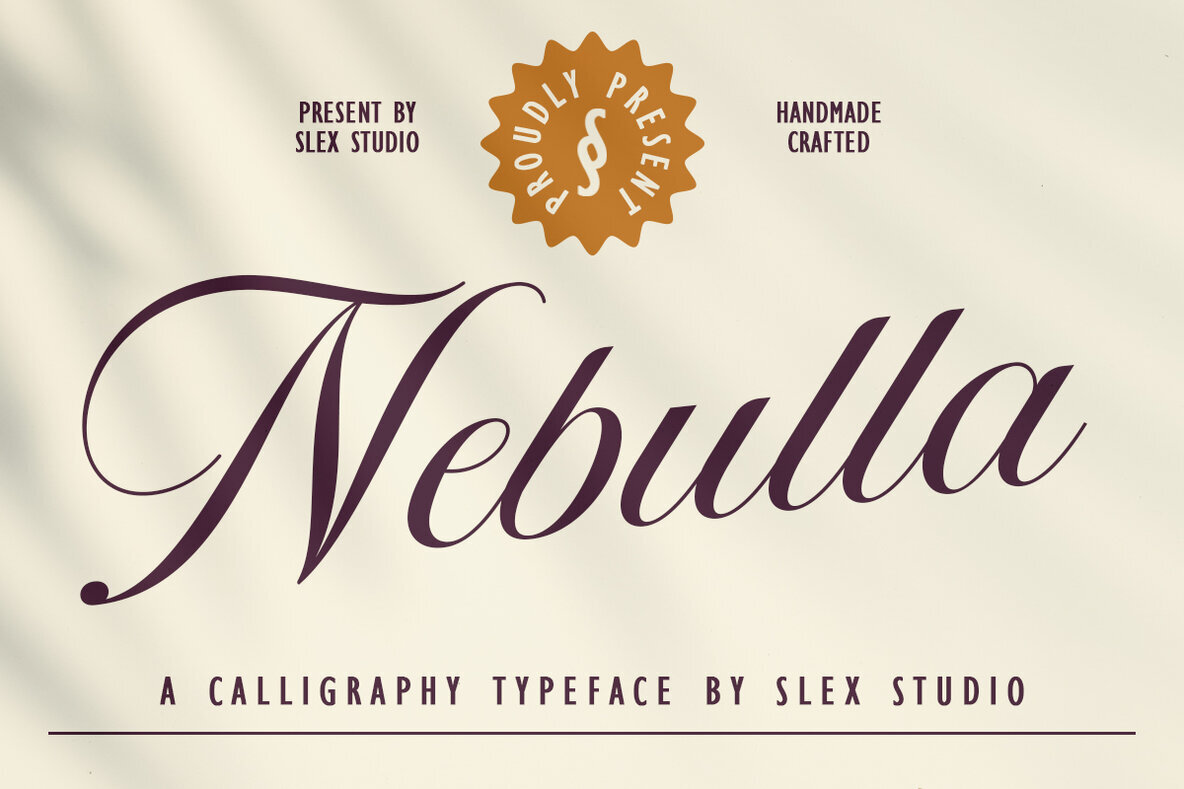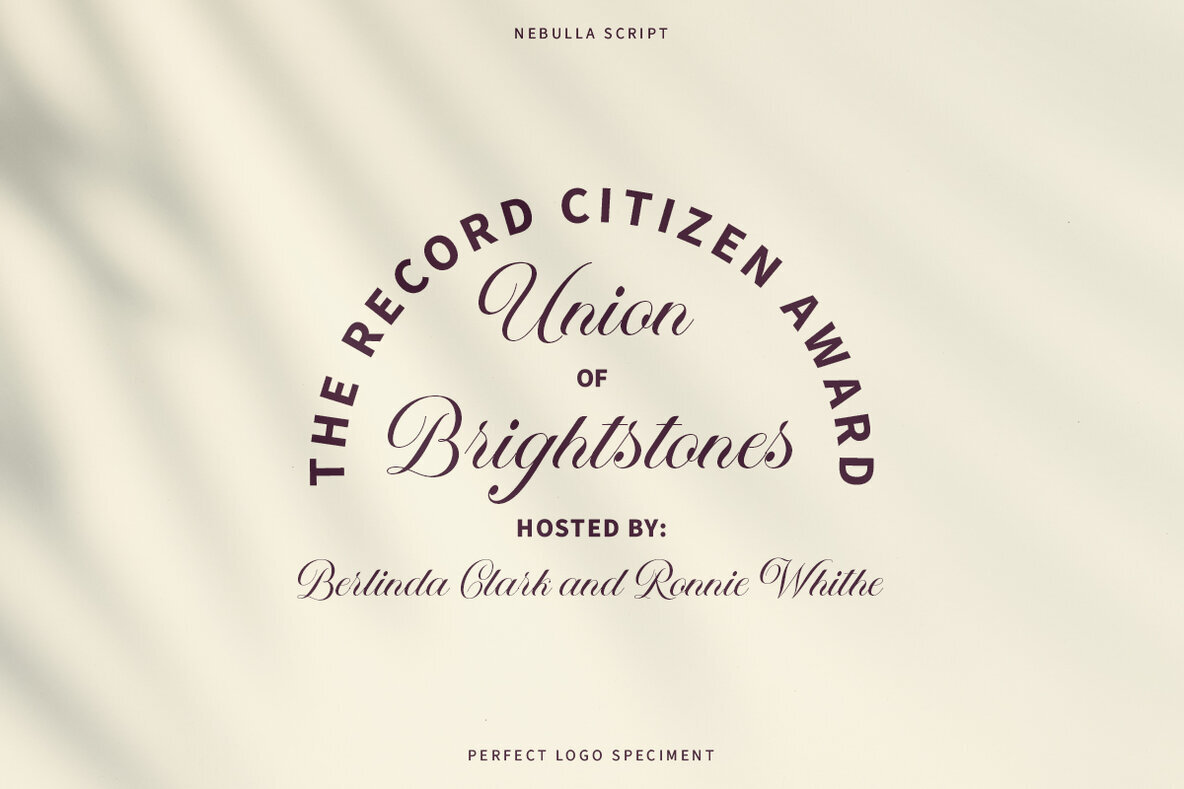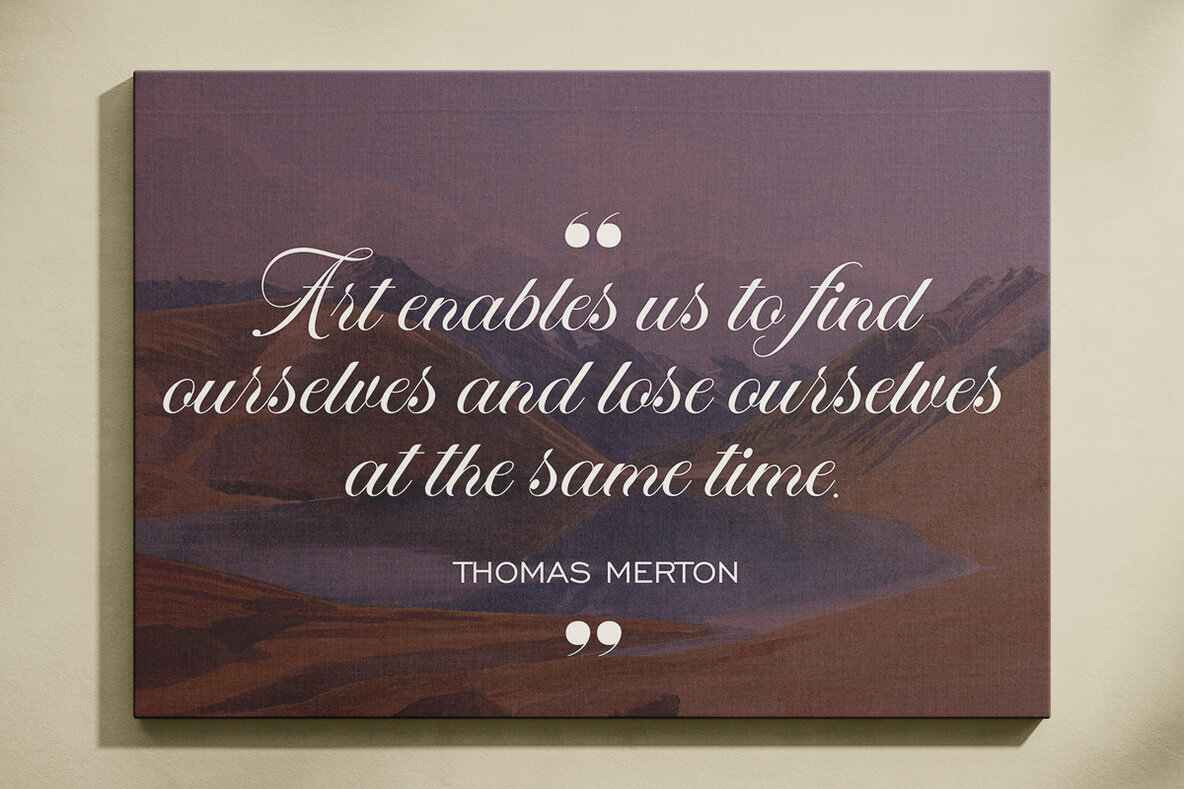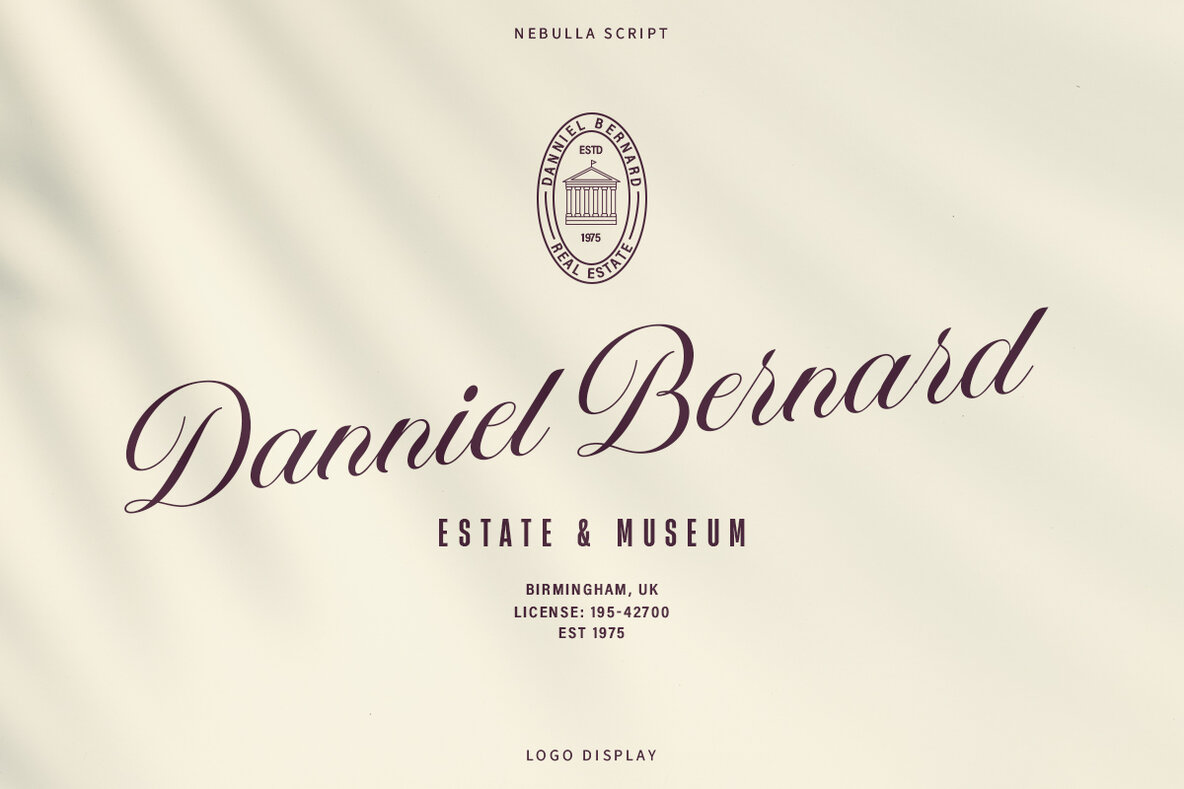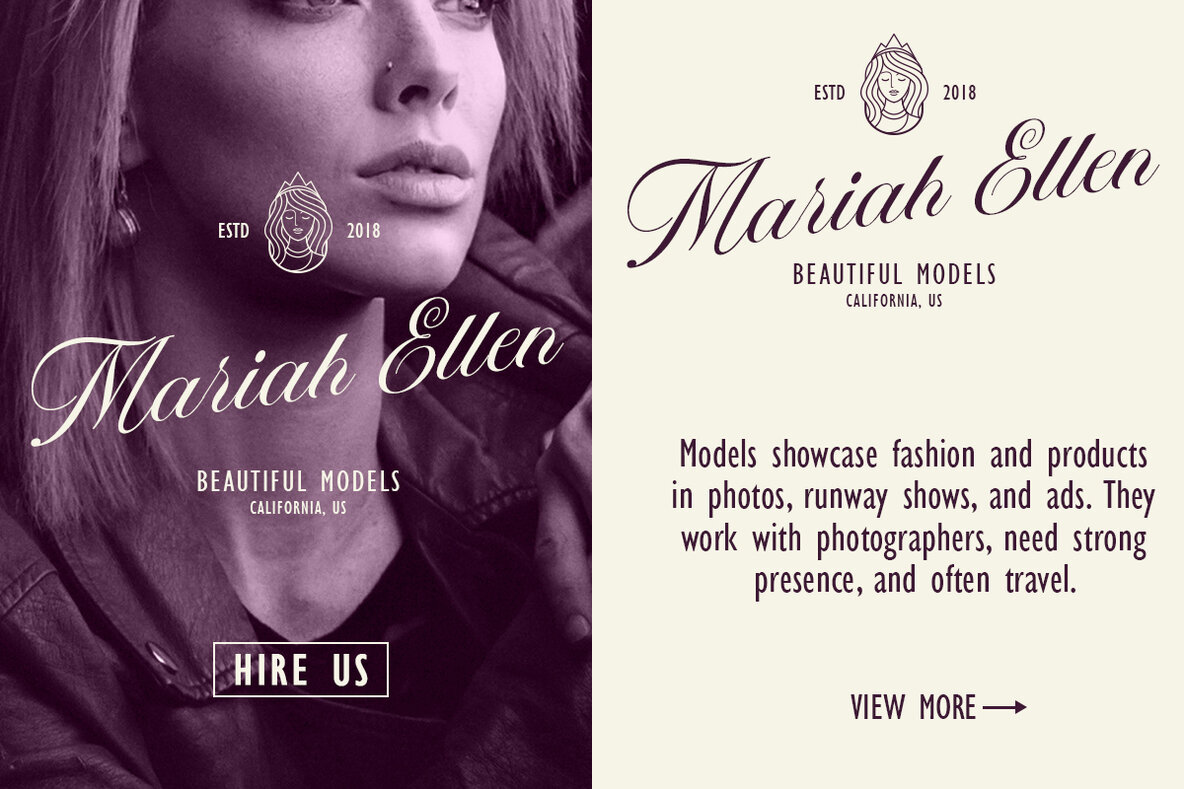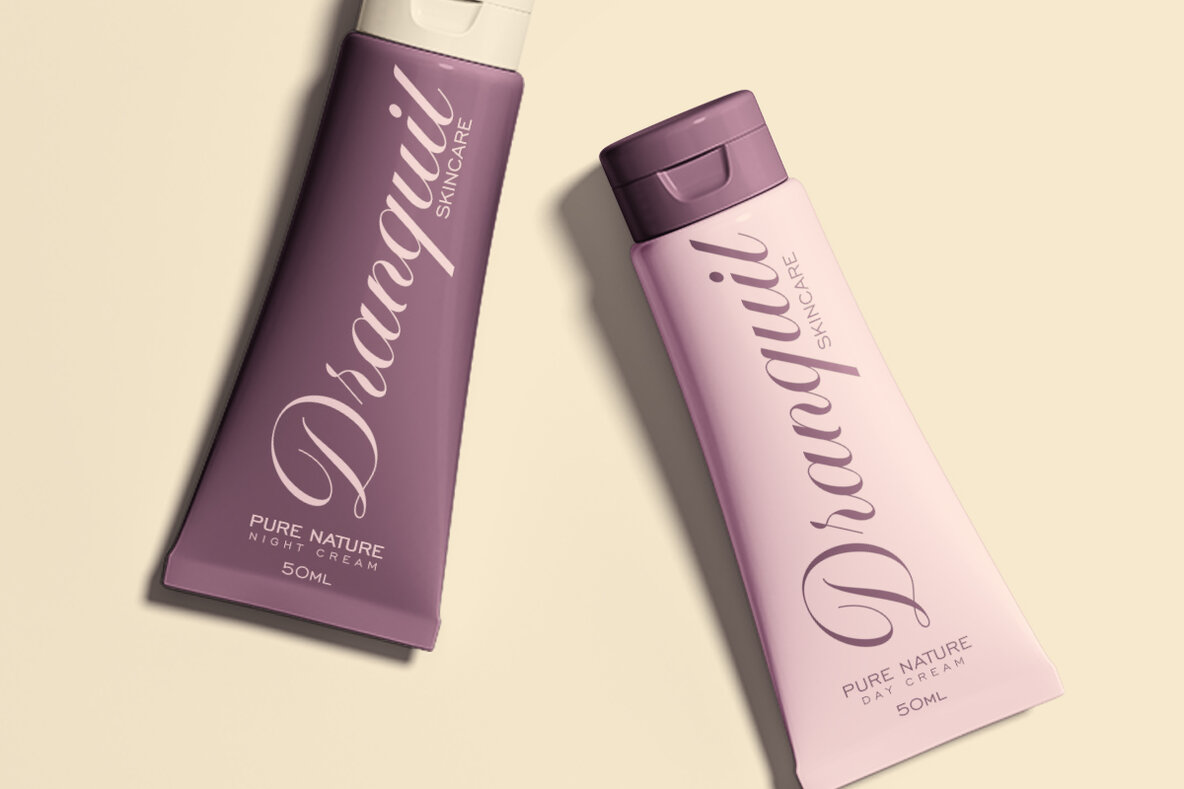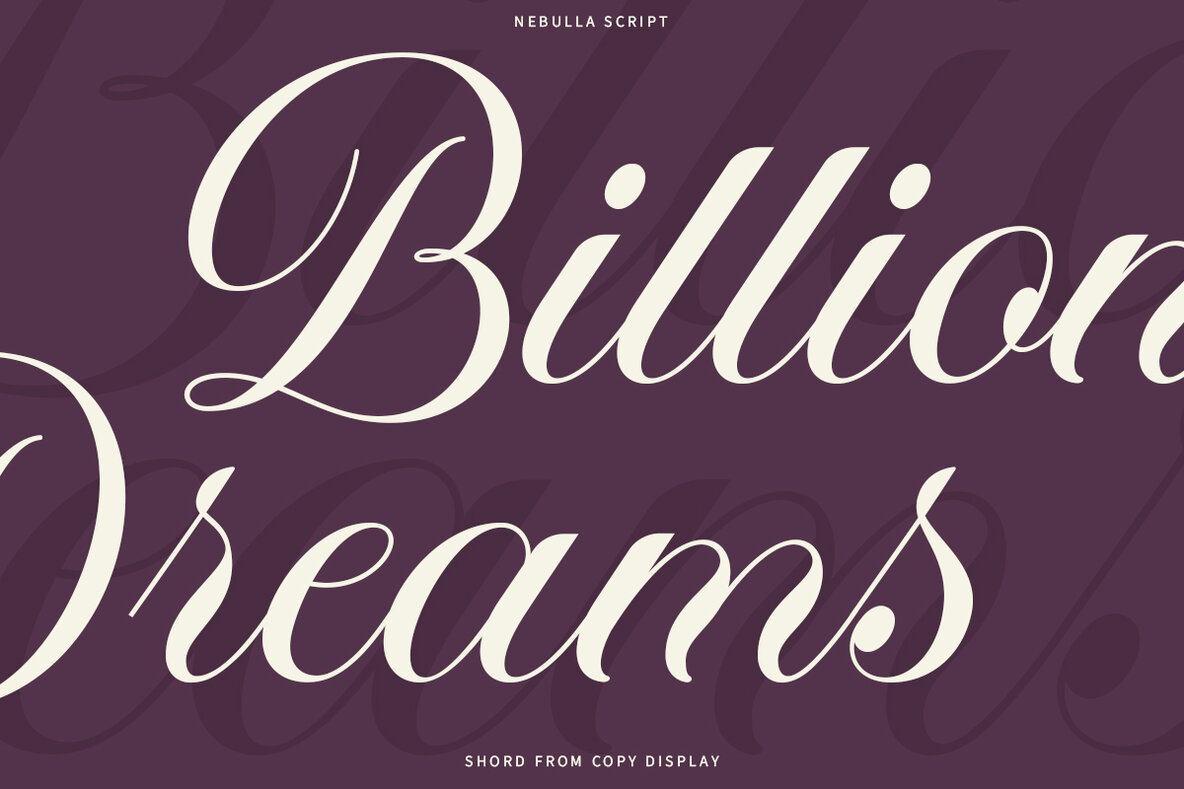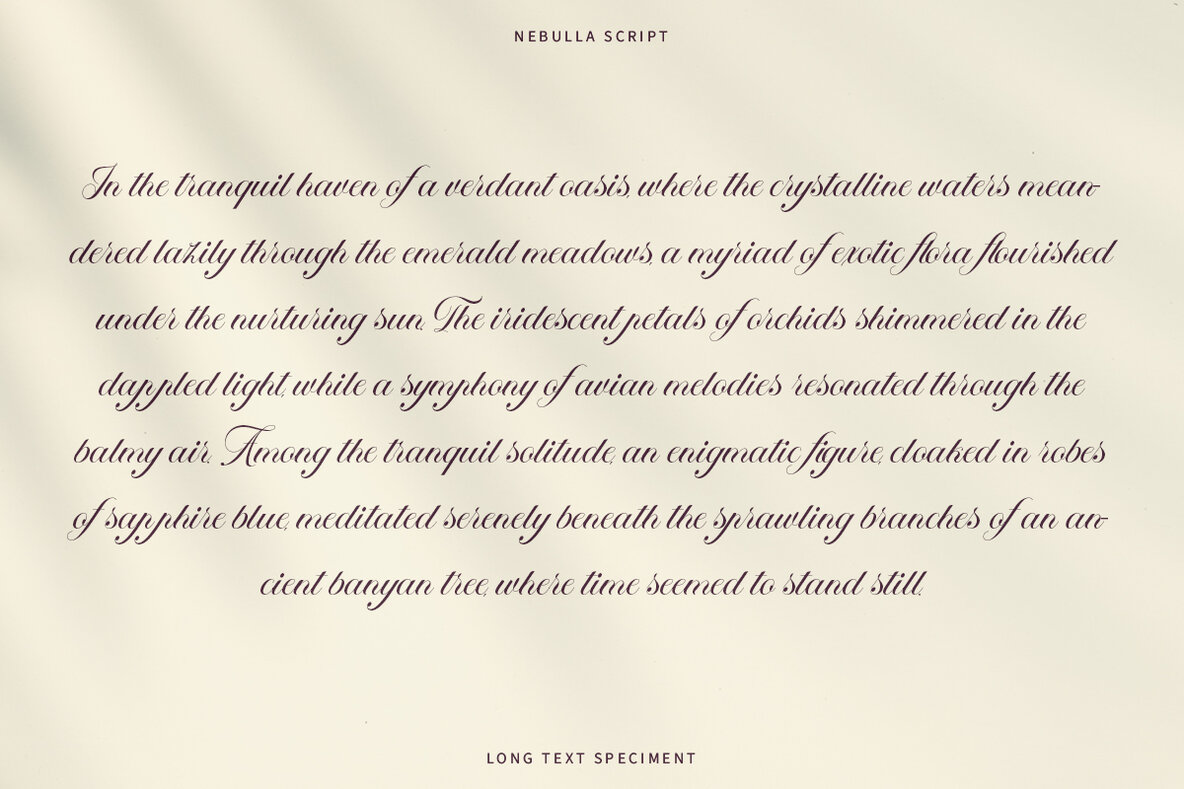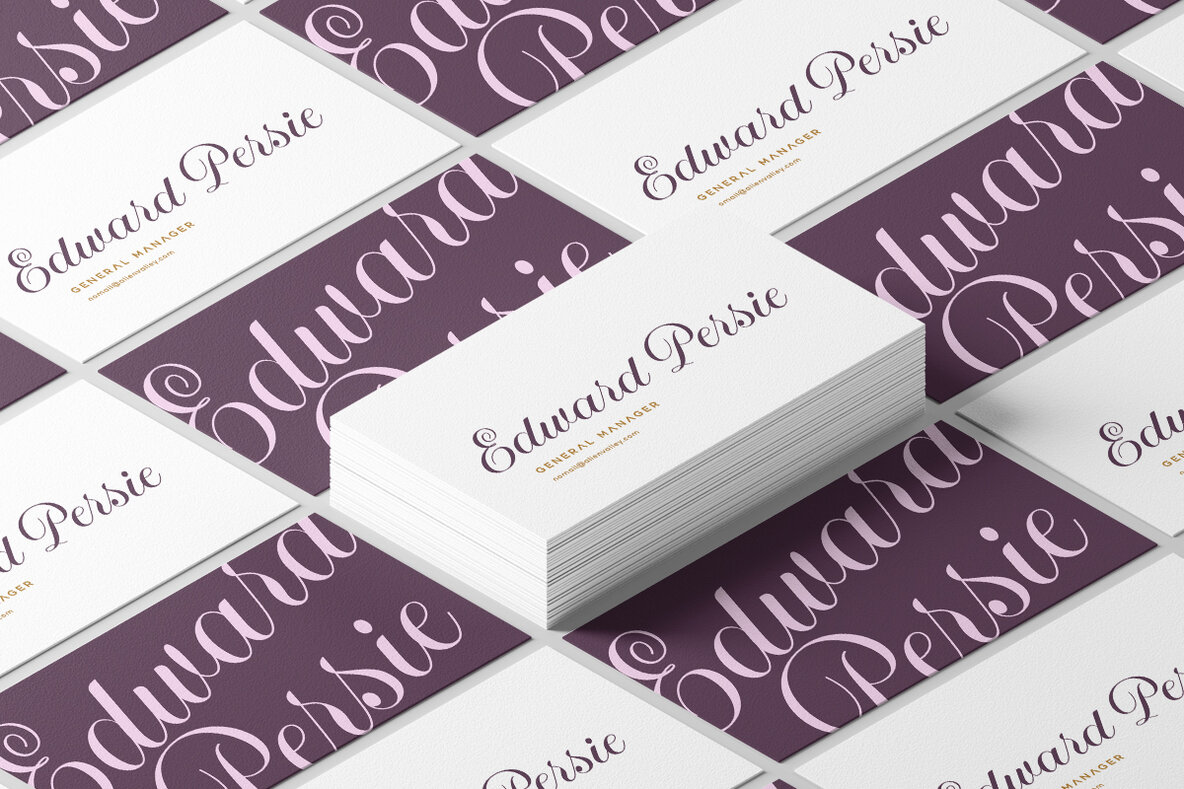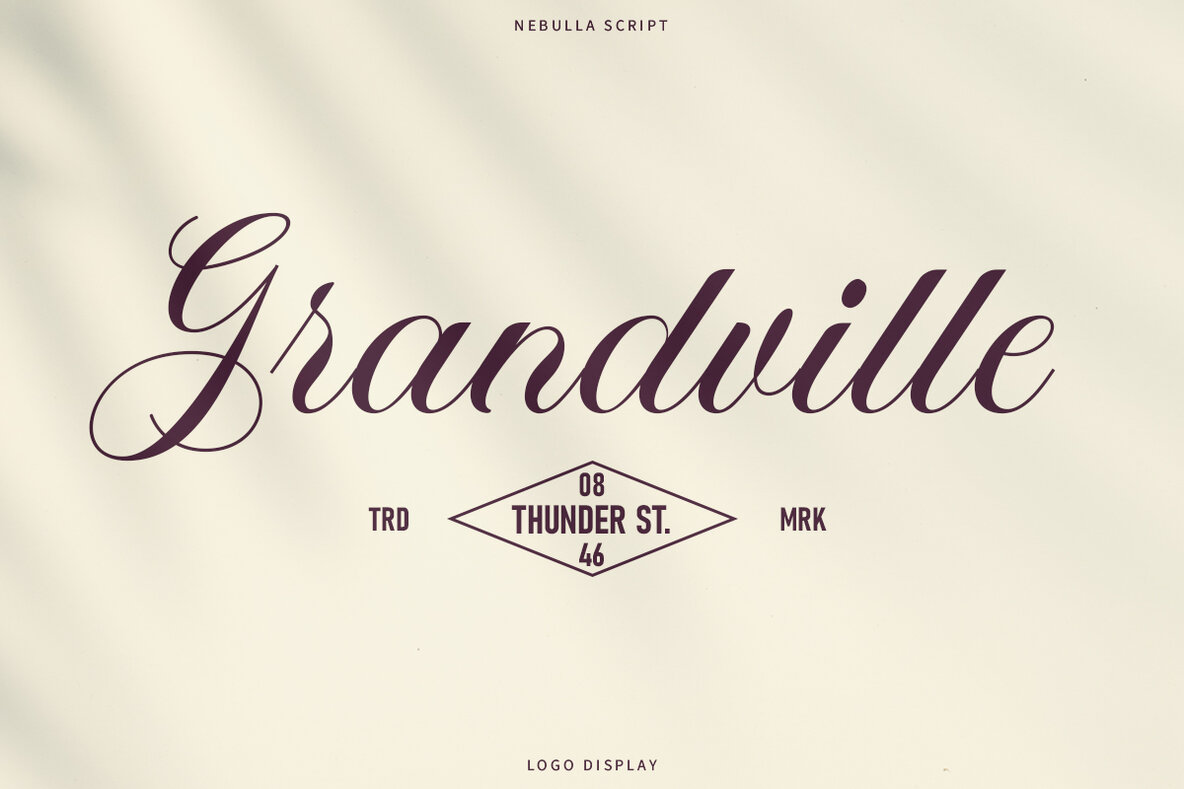
Nebulla Font
Nebulla Script Regular
Introducing Nebulla, a script calligraphy font that dances delicately across the page, exuding fluid grace and meticulous detail in every stroke. Each letter flows seamlessly into the next, adorned with elegant swirls and subtle flourishes that add a sophisticated touch to any project. This font beautifully captures traditional calligraphy, with varying stroke widths creating a dynamic rhythm that captivates the eye. Despite its ornate design, clarity remains a priority; every character is crafted to be both ornamental and easily readable, making Nebulla the perfect choice for invitations, branding, and other projects where timeless elegance is desired. Whether printed on luxurious paper or displayed digitally, this script calligraphy font imbues your designs with an enduring charm that enhances their appeal.Nebulla Font: Timeless Elegance for Your Designs